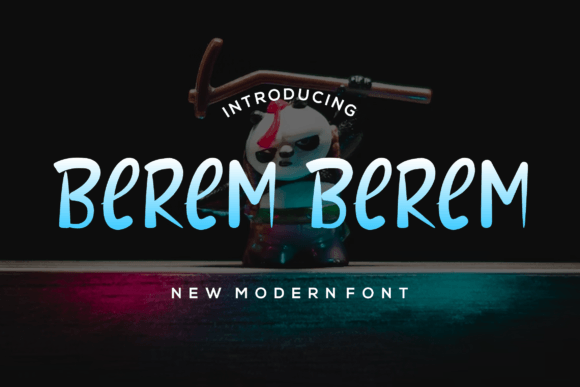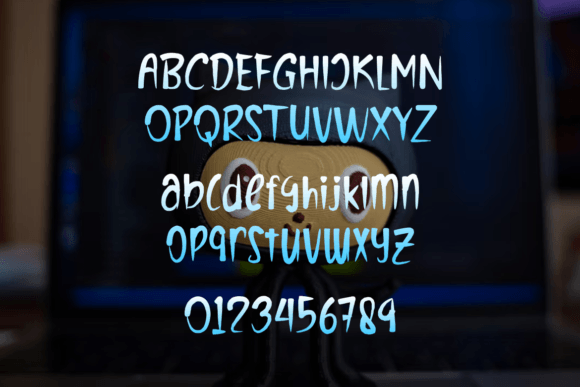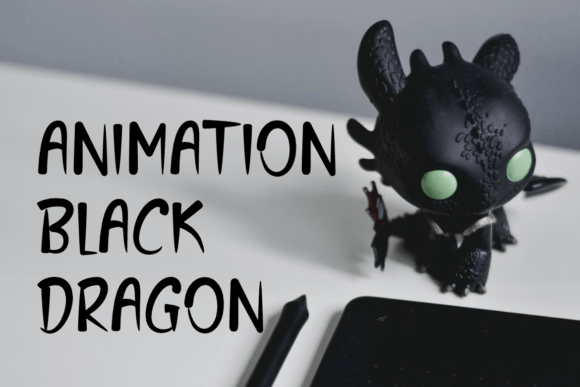
About Berem Berem Font
Berem Berem is a fun and cool handwritten font. Whether you’re using it for crafts, digital design, presentations, or making greeting cards, this font has the potential to become your favorite go-to font, no matter the occasion!